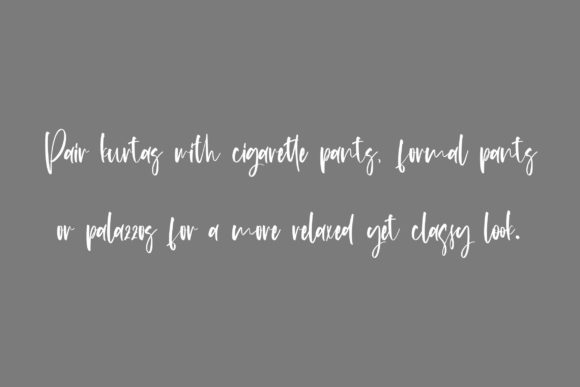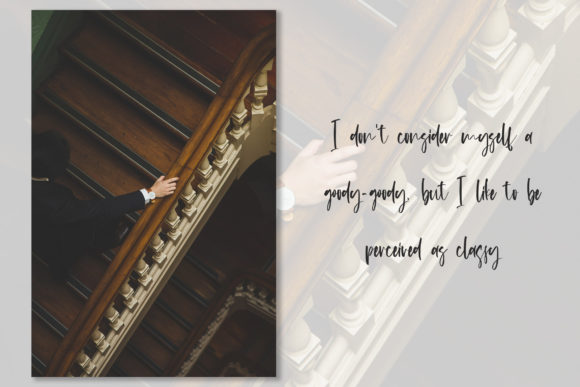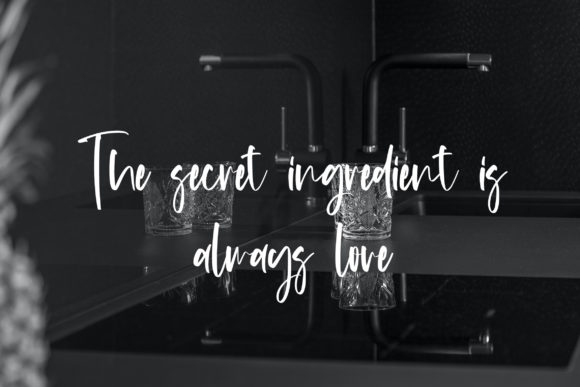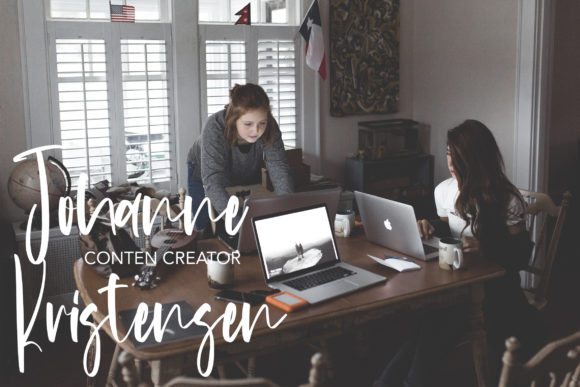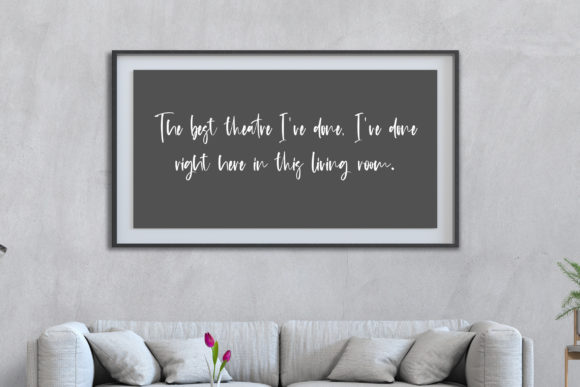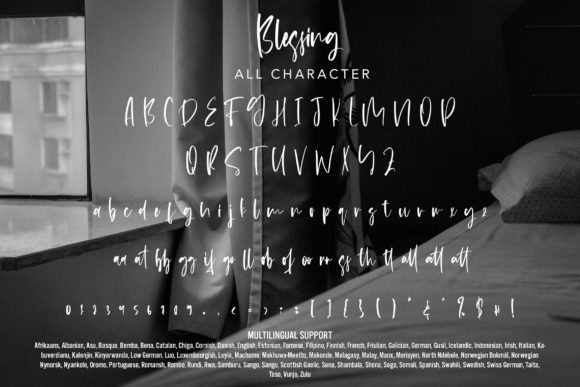
Unleashing the Magic of Beautiful Typography
There’s nothing quite like the feeling of stumbling upon the perfect font for your design project. The excitement is palpable as you envision the entire concept coming together in perfect harmony. You’ve searched far and wide, scrolled through countless options, and finally, you find it – the perfect combination of style and sophistication. This is exactly what happens when you discover the Blessing Font.
Blessing Font is a masterfully designed, handwritten font that effortlessly blends classic calligraphic influences with a modern, fresh touch. Its elegant strokes and refined details make it an ideal choice for designers looking to elevate their projects to new heights. Whether you’re working on a wedding invitation, a logo, or a branding campaign, the Blessing Font is sure to bring a touch of sophistication and class to your design.
With its versatility and timeless appeal, the Blessing Font is a valuable addition to any designer’s toolkit. Its ability to add a personal touch to any project makes it a go-to choice for creatives seeking to leave a lasting impression.
Blessing Font Key Features
- Font Family: Blessing Font is a script font family with 6 styles (Regular, Italic, Bold, Bold Italic, Outline, and Shadow) designed to provide a beautiful and elegant look for any design project.
- Character Count: The font family includes over 200 characters, including uppercase and lowercase letters, numbers, punctuation, and special characters.
- Unique Characteristics: Blessing Font features a unique, handwritten style with subtle flair and connection between letters, making it perfect for creating beautiful and elegant designs.
Blessing Font Review
Overall, I found the Blessing Font to be a nice addition to any design project. Here are some of its key features.
- ✨ Elegant and sophisticated design: The Blessing Font has a unique, modern aesthetic that’s perfect for high-end designs.
- ✨ Versatile: It’s available in a range of weights, making it suitable for everything from headings to body text.
- ✨ Great for creative projects: The Blessing Font is ideal for artistic and creative projects where you want to make a statement.
- ⚠️ Limited language support: The Blessing Font may not support all languages, which could be a problem for projects that require multilingual support.
- ⚠️ Not suitable for small text: The Blessing Font is a decorative font, and it may not be legible in small text sizes.
Overall, the Blessing Font is a solid choice for designers who want to add some elegance and sophistication to their projects. However, it’s essential to be aware of its limitations, especially when it comes to language support and text size.
For optimal results, use the Blessing Font in conjunction with a clean and minimalist design aesthetic.
– Creating digital invitations and greeting cards
– Designing logos and branding materials
– Typesetting inspirational quotes and phrases
The Blessing Font family includes a comprehensive character set that covers multiple languages, including Latin, Cyrillic, and Greek scripts. The font includes over 1,000 glyphs, including punctuation, numbers, and special characters. The character set is designed to be compatible with a wide range of languages and applications.